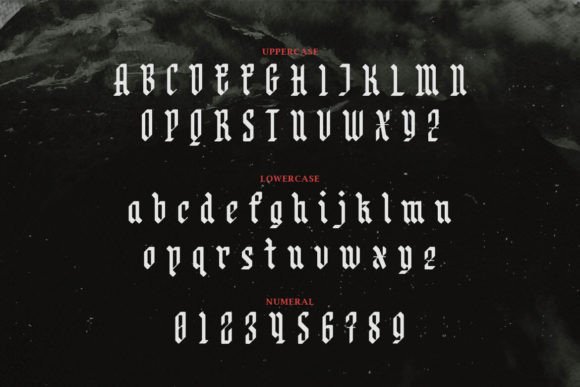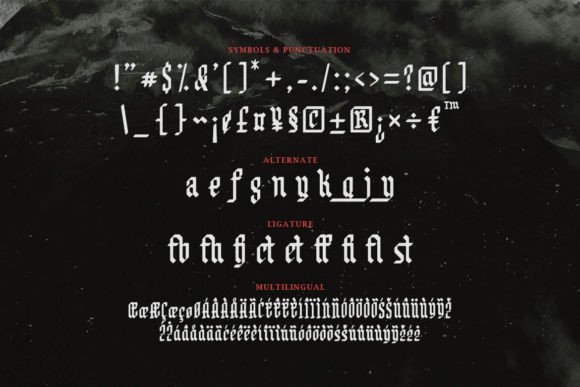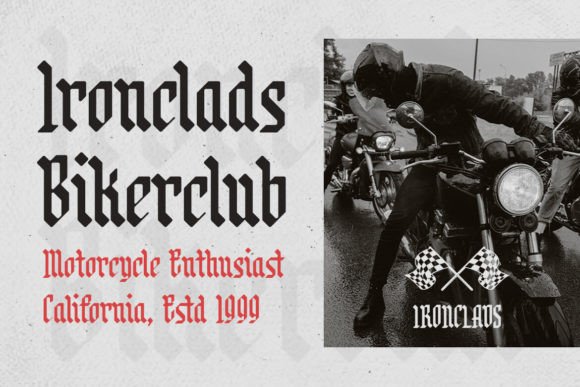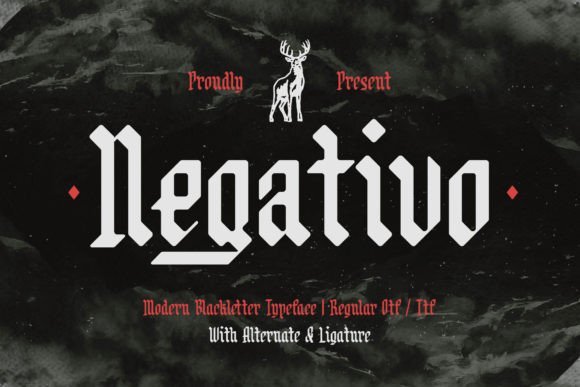
Introduction to Negativo Font
Experience the bold fusion of tradition and modernity with β€œNegativo” – a modern blackletter typeface that exudes strength and sophistication.
Embrace the versatility of β€œNegativo” as it seamlessly blends tradition with a modern sensibility Whether you’re designing for fashion, music, or luxury sectors, this typeface will make a powerful statement with its bold and distinctive style.